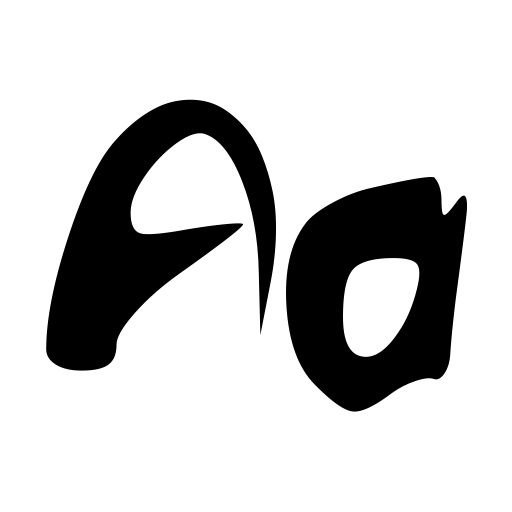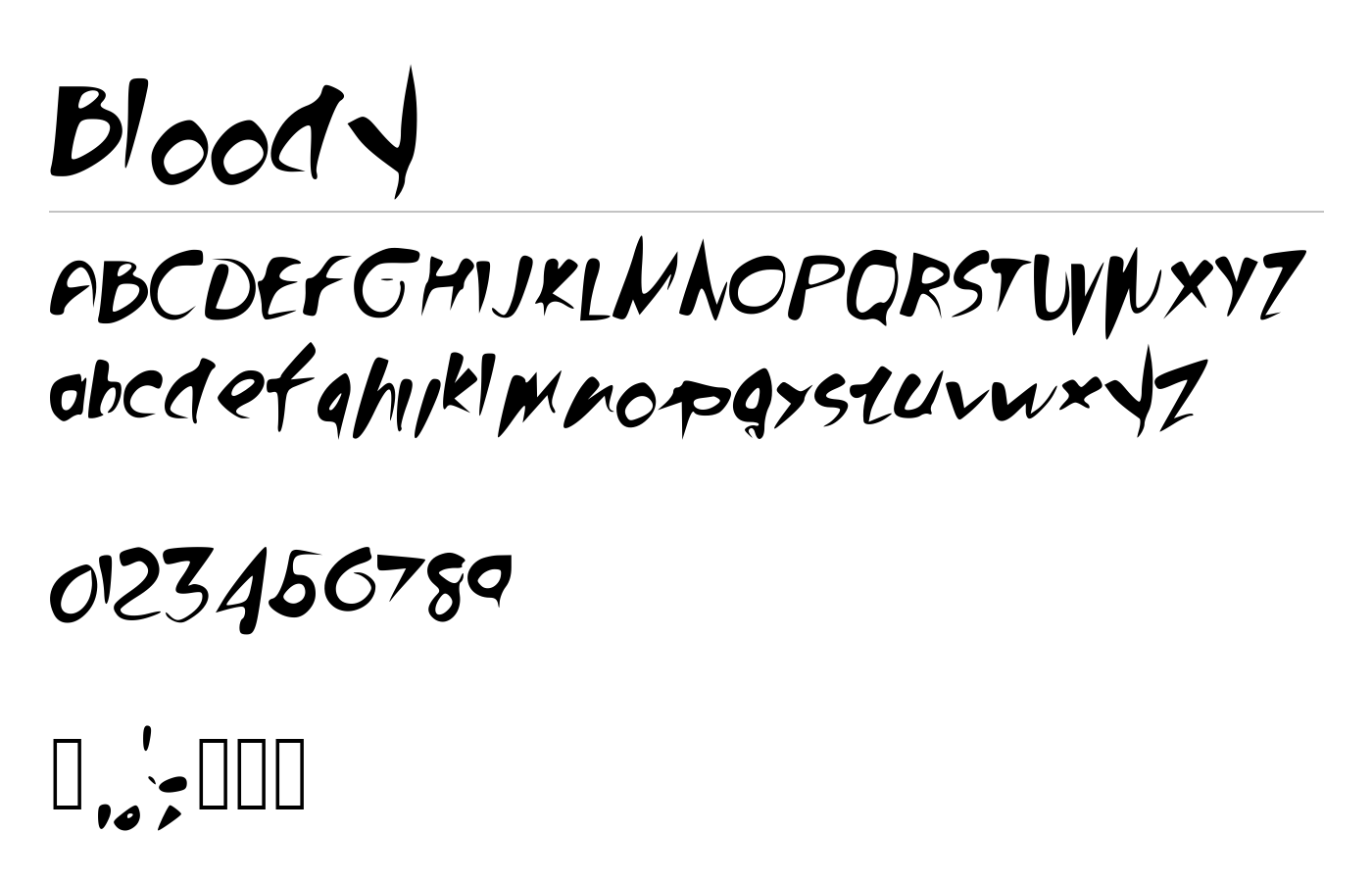
Bloody Font is a bold, expressive script with sharp, jagged strokes that create a dynamic, edgy look. Its irregular letterforms and high contrast make it perfect for attention-grabbing designs in horror, thriller, or Halloween-themed projects, lending a dramatic and intense personality. This font works best in headlines, posters, and logos where a striking, energetic impact is desired.
Bloody Font
About Bloody Font